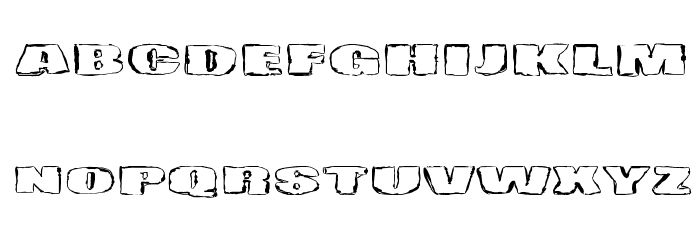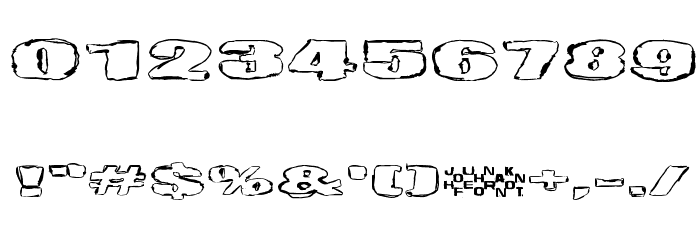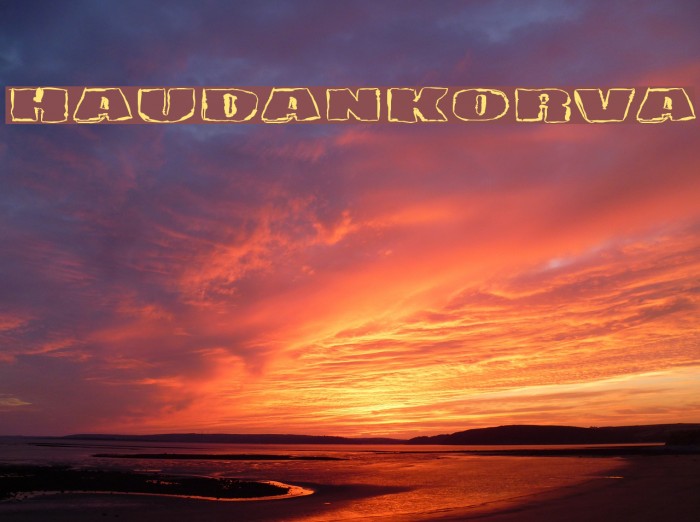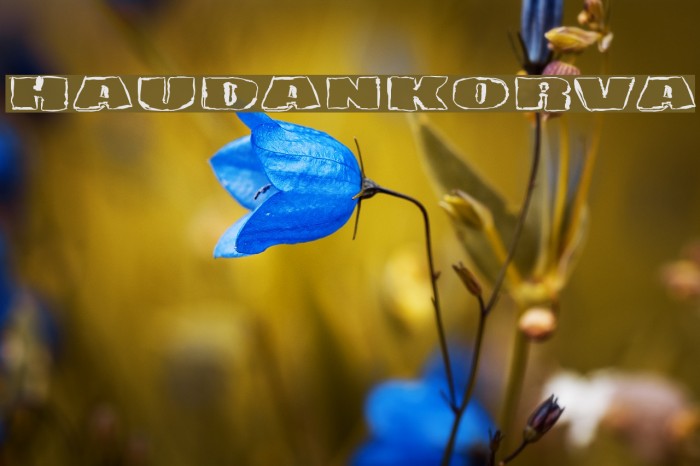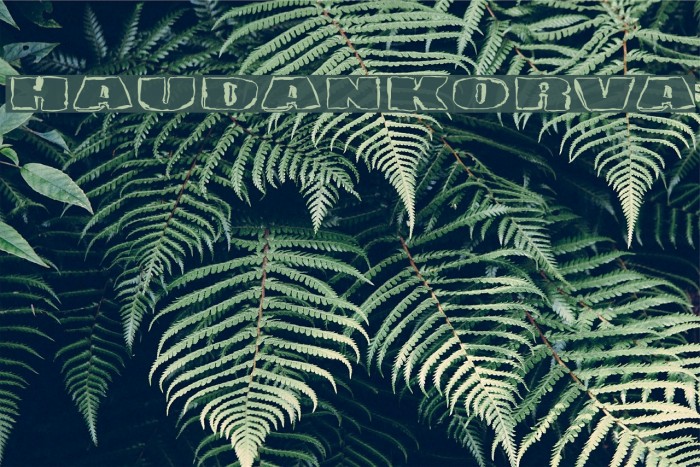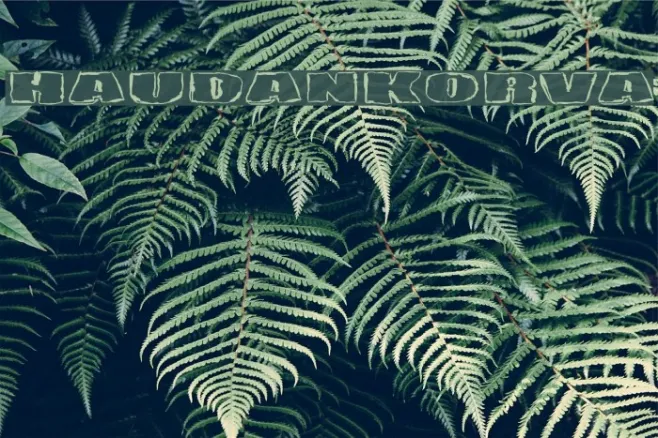
Haudankorva Font
This font features a bold, distressed style with a rugged, hand-drawn appearance. The characters have a rough, textured outline that gives them a unique, vintage feel. The uppercase and lowercase letters maintain a consistent weight, with slightly irregular edges that add to the font's charm. The numbers and special characters follow the same design, ensuring a cohesive look across all glyphs. This font's distinctive style makes it ideal for projects that require a touch of grunge or a retro aesthetic.
A bold, distressed font with a rugged, hand-drawn appearance.
- Proposed Projects: Ideal for posters, album covers, vintage-themed designs, and branding that requires a grunge or retro aesthetic.
- Overall Style: Vintage